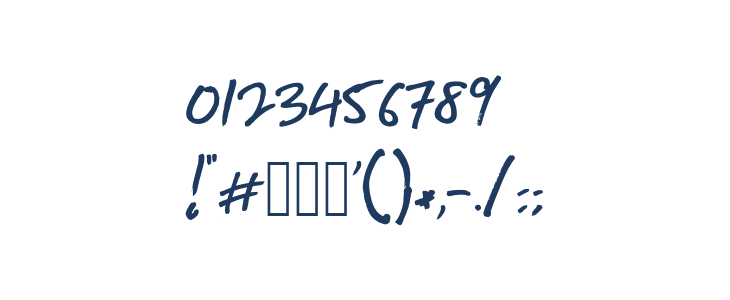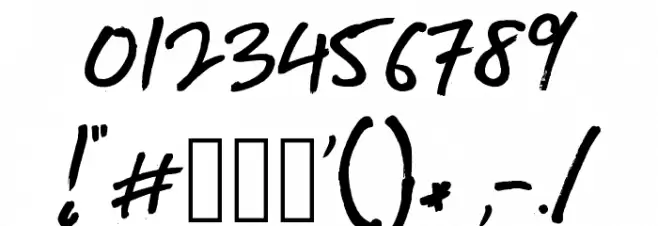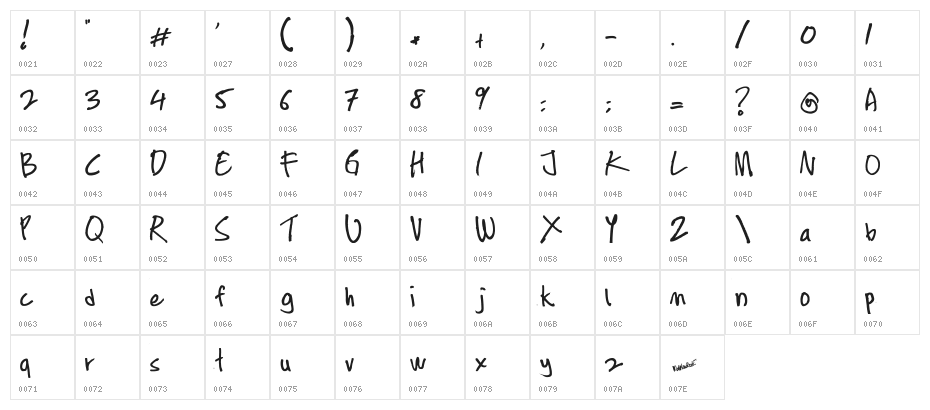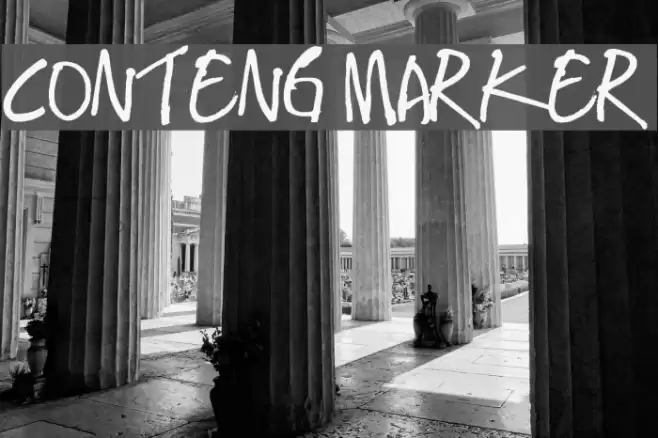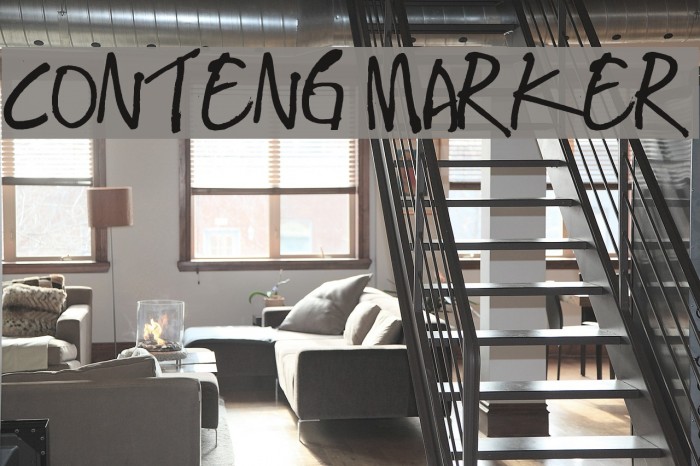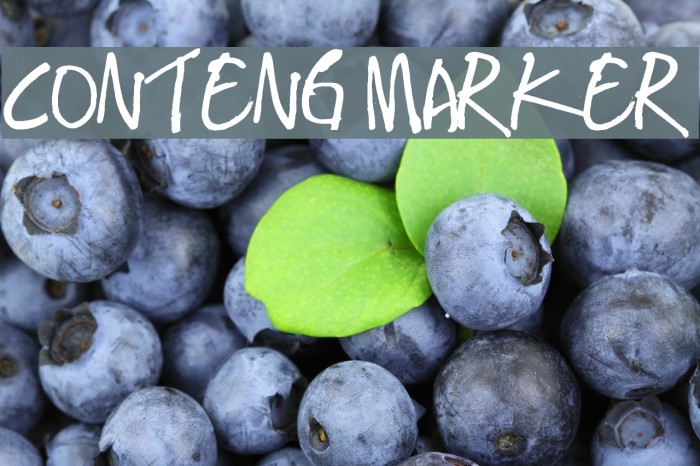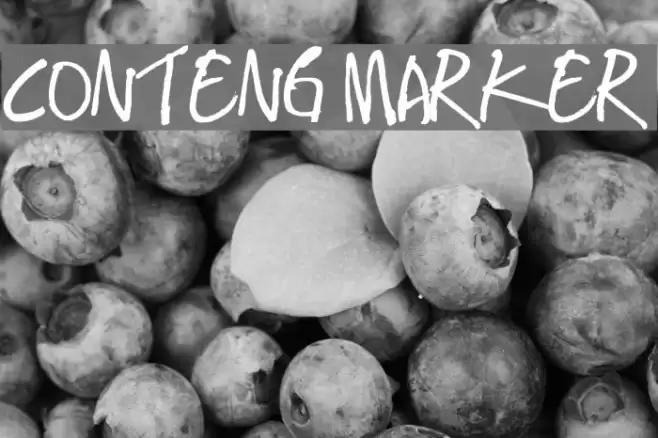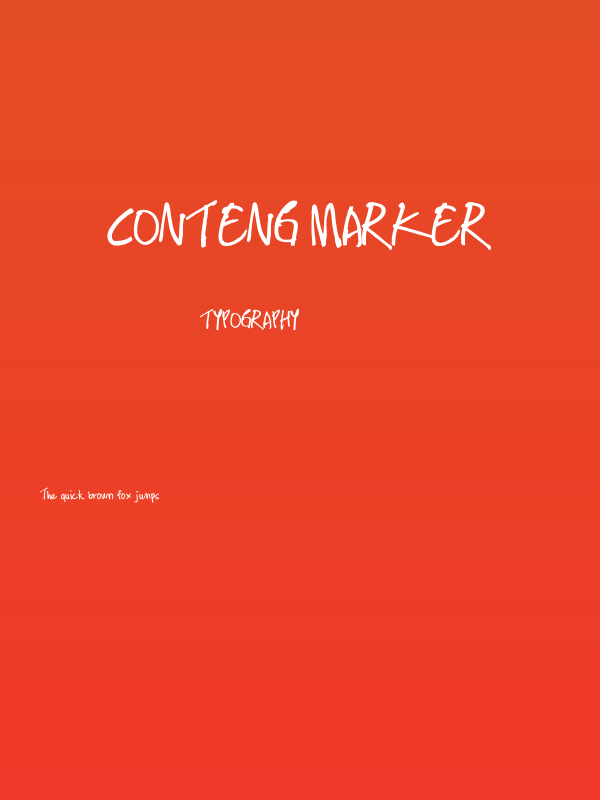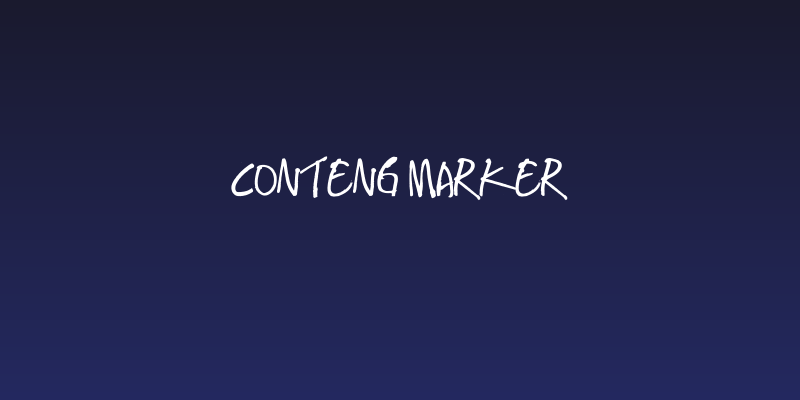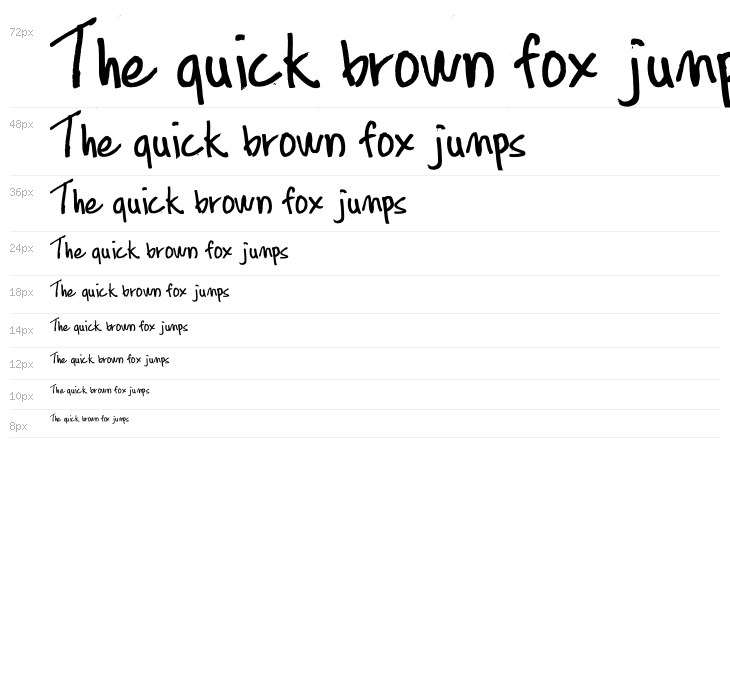
CONTENG MARKER Font
CONTENG MARKER Description
This font exhibits a casual, handwritten style with a playful and informal appearance. The characters are slightly irregular, giving them a dynamic and energetic feel. The strokes are bold and varied, with a noticeable contrast between thick and thin lines, adding to the font's expressive nature. The letters are slightly slanted, enhancing the informal vibe. The overall look is reminiscent of a marker or brush pen, making it suitable for creative and artistic projects. The spacing between characters is relatively tight, contributing to a cohesive and compact visual impact.
| Overall Style | Casual, Artistic |
| Proposed Projects | Ideal for creative projects such as posters, invitations, greeting cards, and social media graphics. It can also be used for branding that requires a personal touch. |